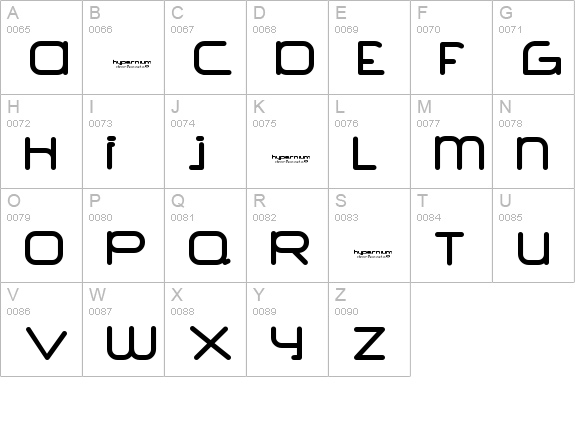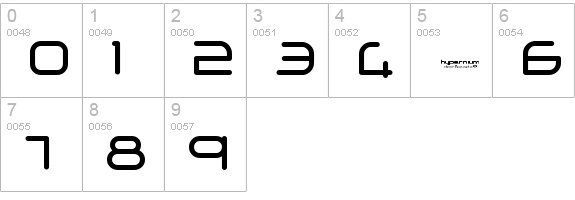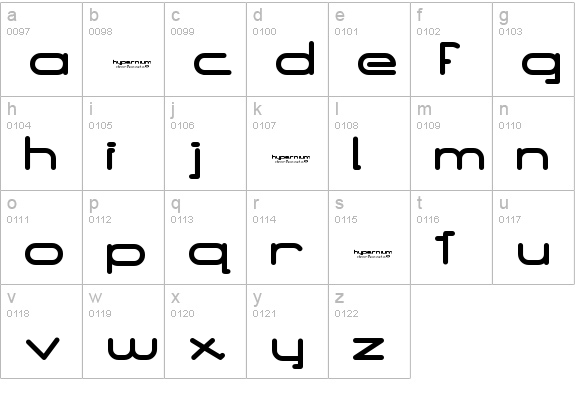
Hypernium(eval) Font Details
Introducing Hypernium(eval) font, a sleek and modern typeface that is perfect for a wide range of design projects. This versatile font features clean lines and a contemporary aesthetic, making it ideal for both print and digital applications. With its unique style and wide range of weights, Hypernium(eval) font is sure to make your designs stand out. What makes Hypernium(eval) font even more appealing is that it is completely free to download at FontsMarket.com. That's right, you can enhance your projects with this stunning font without any cost involved. Whether you're working on branding, web design, or any other creative project, Hypernium(eval) font is a fantastic choice that won't break the bank. Don't miss out on the opportunity to elevate your designs with Hypernium(eval) font. Download it for free today and see the difference it can make in your projects.